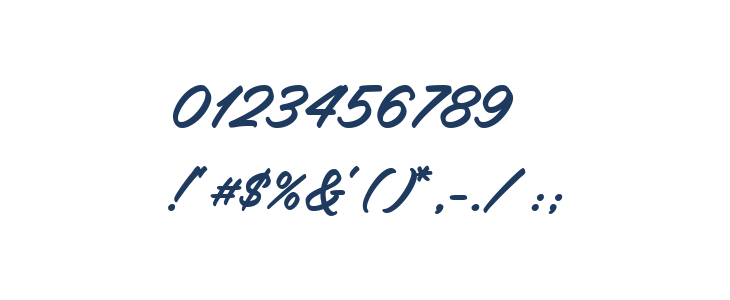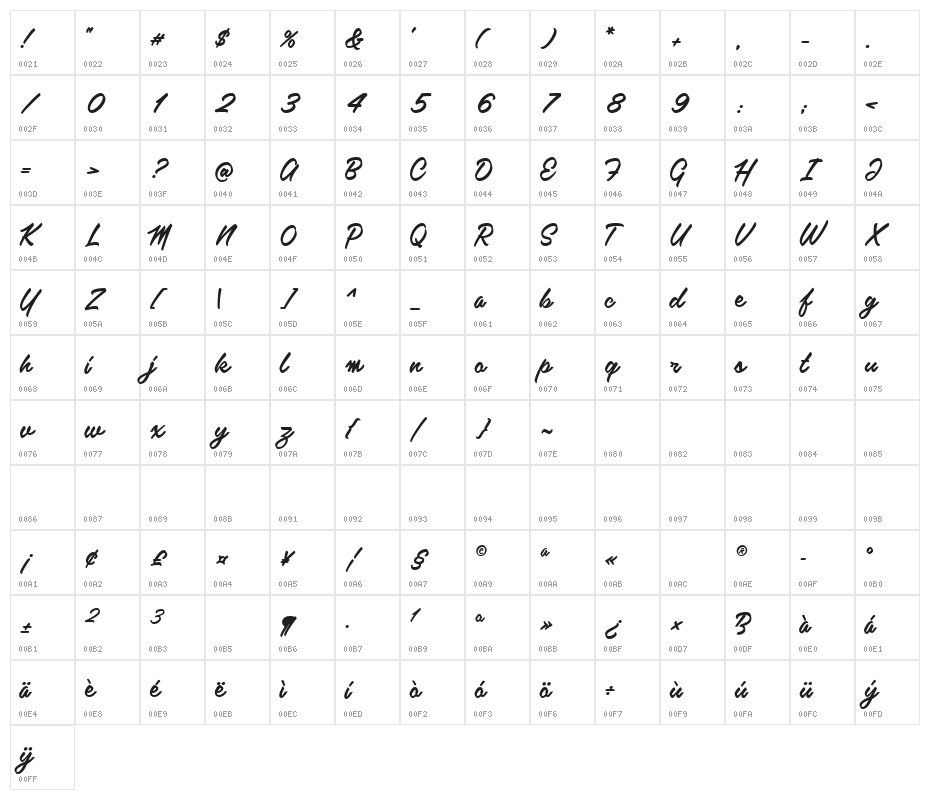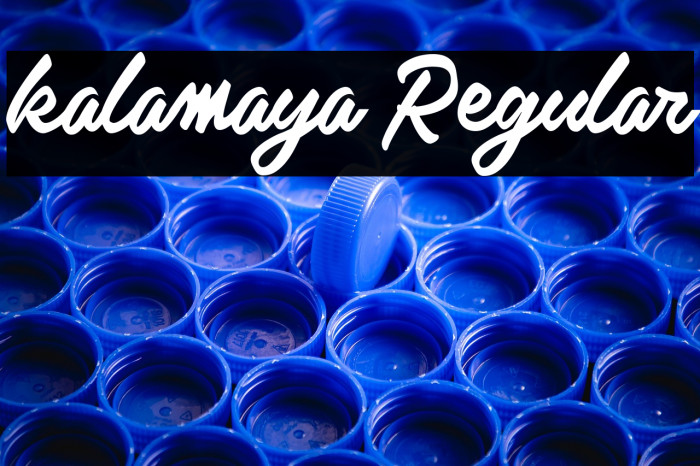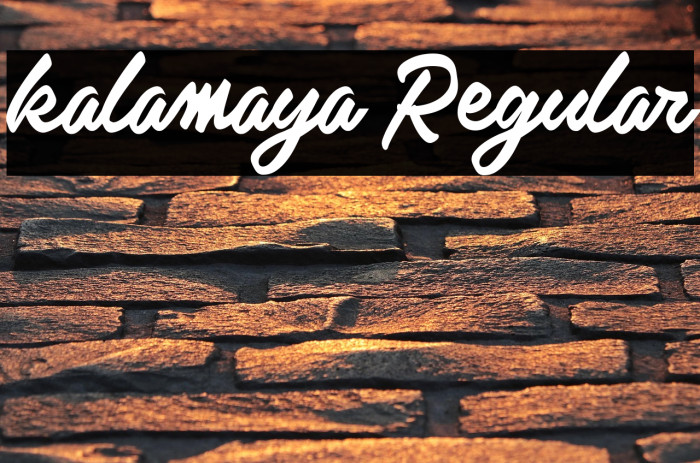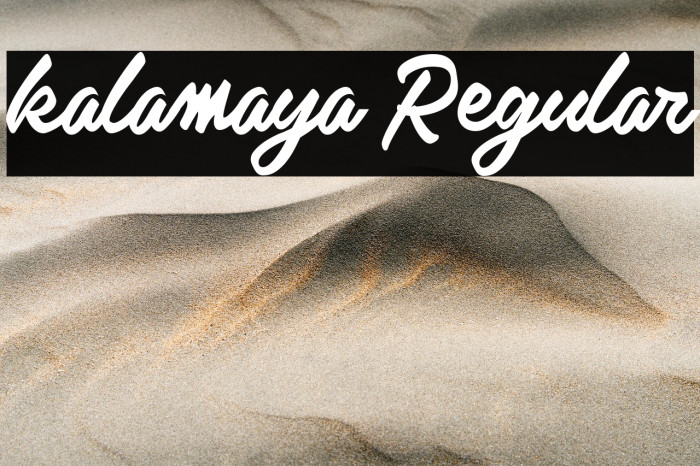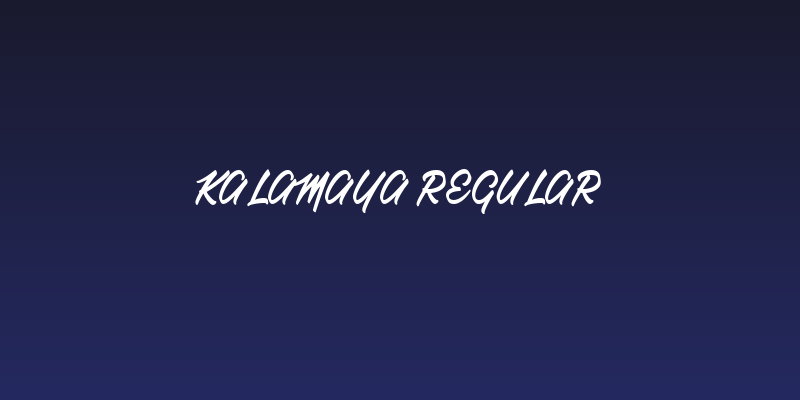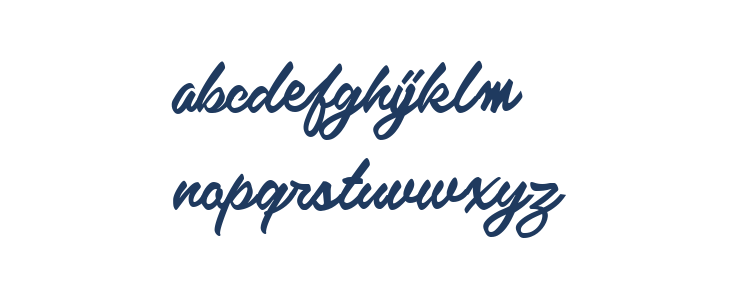
kalamaya Regular Font
kalamaya Regular Description
This font features a dynamic and fluid script style, characterized by its smooth, flowing curves and elegant strokes. The uppercase letters are bold and slightly slanted, giving a sense of movement and grace. The lowercase letters maintain a consistent flow, with rounded forms and a slight slant that enhances readability. Numbers and special characters are designed to complement the overall style, maintaining the same fluidity and elegance. The font's design is both modern and classic, making it versatile for various applications.